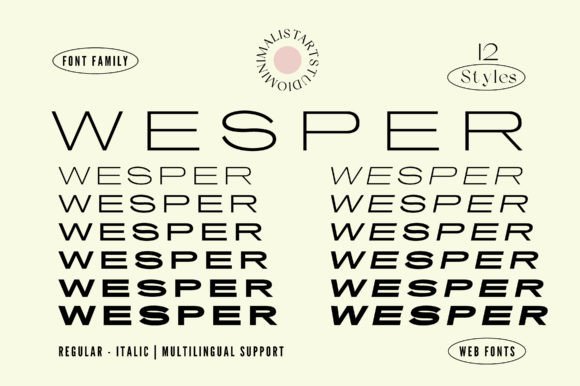
Step into the world of Wesper Font, a captivating sans serif typeface meticulously crafted by Minimalistartstudio to be the cornerstone of your design arsenal. With its sweeping curves and sharp edges, Wesper exudes an air of sophistication and modernity that will elevate your creative projects to new heights.
As you delve into the Wesper Font family, you'll discover a diverse range of weights, from the delicate Thin to the bold Black, each accompanied by its elegant italic counterpart. This comprehensive selection empowers you to effortlessly convey a spectrum of emotions and messages within your designs.
Whether you're designing a striking clothing line, crafting a captivating book, or creating eye-catching packaging designs, Wesper Font emerges as the ideal choice. Its inherent versatility seamlessly adapts to a multitude of design contexts, making it an indispensable tool for any creative professional seeking to leave an indelible mark.
Unleash your creativity with Wesper Font and watch as your designs take on a life of their own. Experience the joy of crafting projects that resonate with your audience, leaving them captivated and inspired. Embrace the power of Wesper Font today and unlock a world of endless design possibilities.